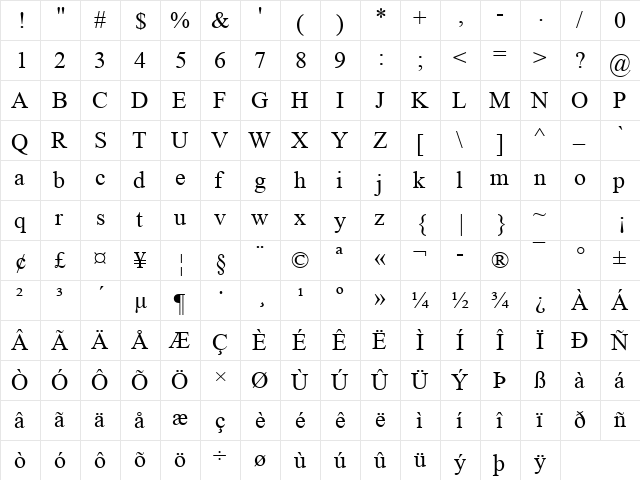
font239 Regular
| Foundry | Monotype Typography |
| Designer | Monotype Type Drawing Office - Stanley Morison, Victor Lardent 1932 |
Design Context for font239 Typeface
font239 takes a measured approach to typography — its balanced proportions and neutral character make it a reliable workhorse for both digital and print work.